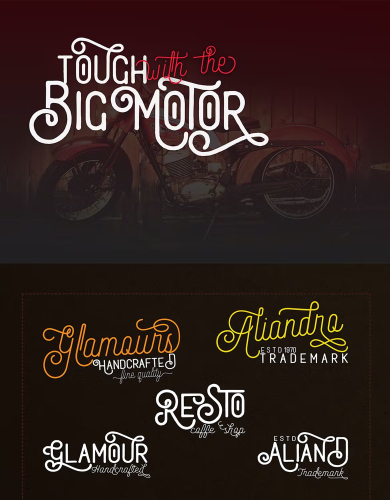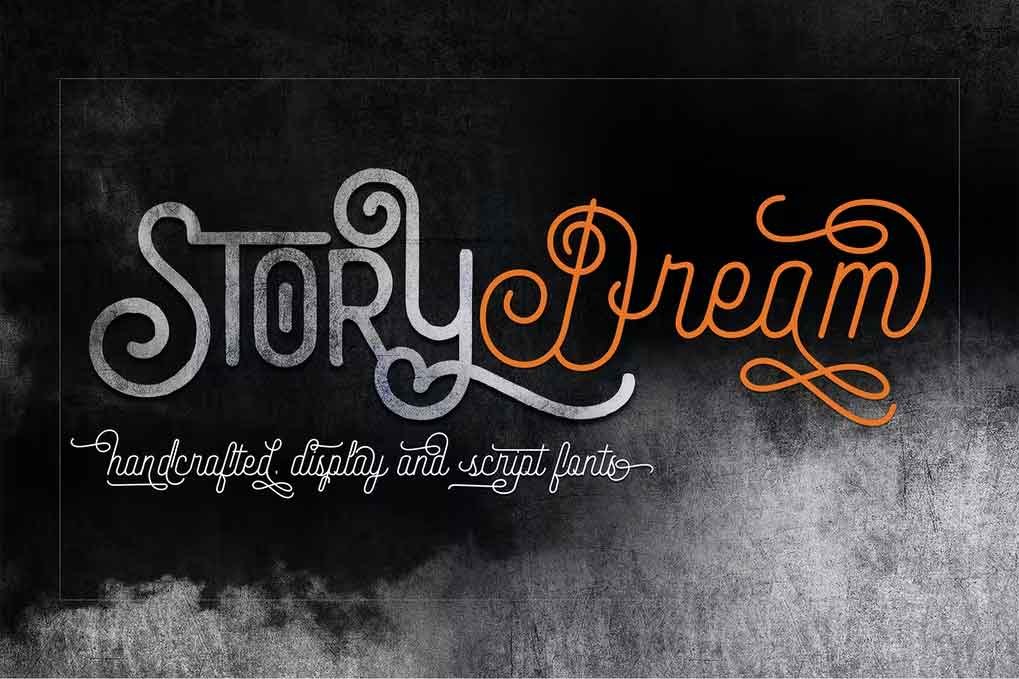
Story Dream Script Font
Introducing
Handcrafted, display and script typeface
Story Dream 2 typefaces + Ornament
Are two typefaces of letters handcrafted, script and Display, very beautifully unique and modern, solution your next design, suitable for the needs of: screen printing t-shirt, logo, branding, trademark, greeting cards, flayer, posters, invitations, magazine titles and etc , Story Dream complete with Unicode PUA, easily accessible with the Character Map,. Story Dream script to have 484 Glyph with features, standard ligatures, Swash, Titling, stylistic sets, stylistic Alternates, Initial, Dream Story Display 300 Glyph with Feature, standard ligatures, discretionary ligatures, stylistic sets and swashes.
Features
Basic Latin A-Z and a-z Numbers Symbols
Where Story Dream Script Font works best
A short phrase in Story Dream Script Font carries warmth that a typeset sans cannot fake; keep the rest of the card plain.
Chalkboard-style headings in Story Dream Script Font make a menu feel hand-made. Keep the dish descriptions in a simple face so prices stay readable.
One line of Story Dream Script Font over a photo is enough; the script carries the tone and the caption does the work.
What kind of work does Story Dream Script Font suit?
It sits in the Script And Handwritten group and reads as branding, display, modern, script. That makes it a candidate wherever those qualities help: headings, packaging, social graphics and brand work. Set it at the size you plan to use before deciding.